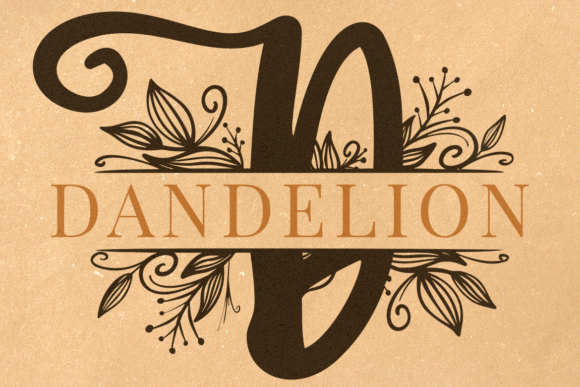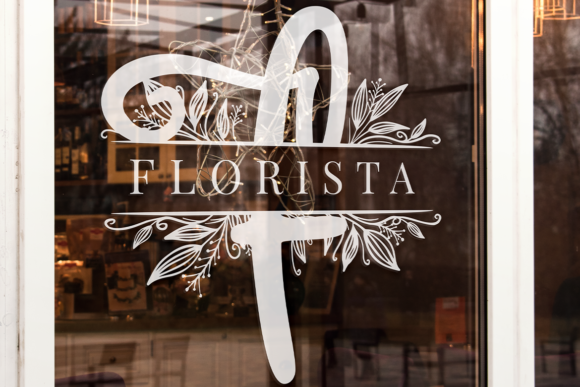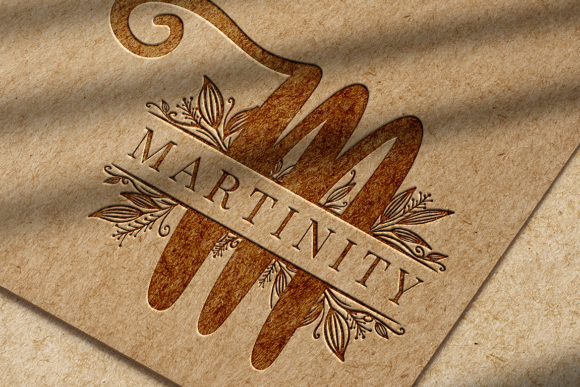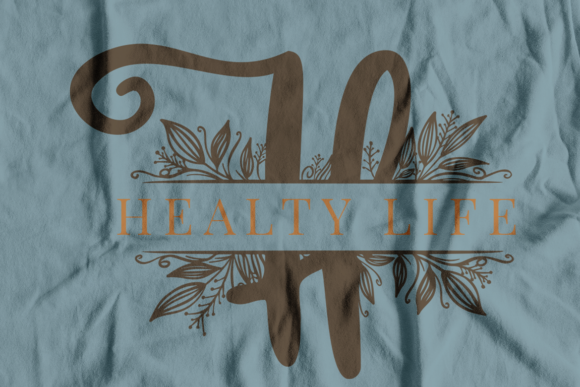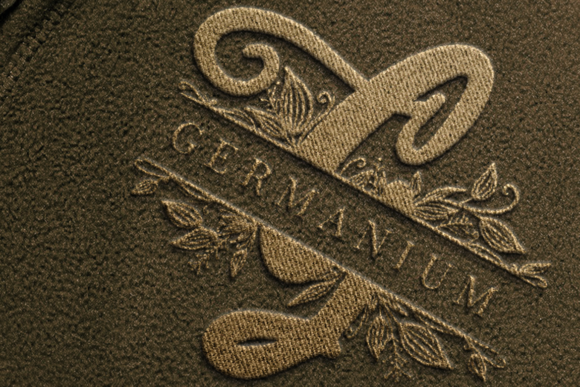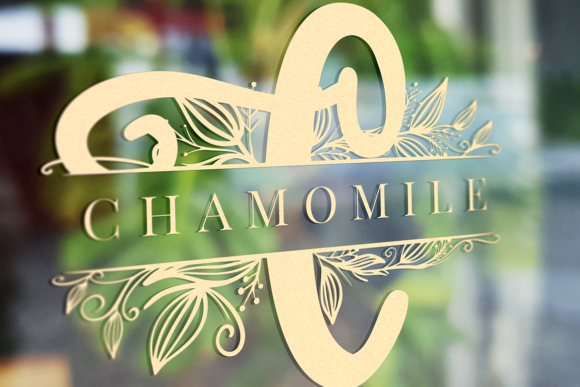
Introduction to Julia Monogram Font
Julia Monogram is a lovely decorative font.
Get inspired by its lovely feel and use it to create gorgeous wedding invitations, beautiful stationary art, eye-catching social media posts, and cute greeting cards .
Key Features of Julia Monogram Font
Why Choose Julia Monogram Font?
Julia Monogram Font offers exceptional quality and versatility, making it a valuable addition to your design toolkit. Whether you’re creating for personal projects or commercial use, Julia Monogram Font delivers professional results.